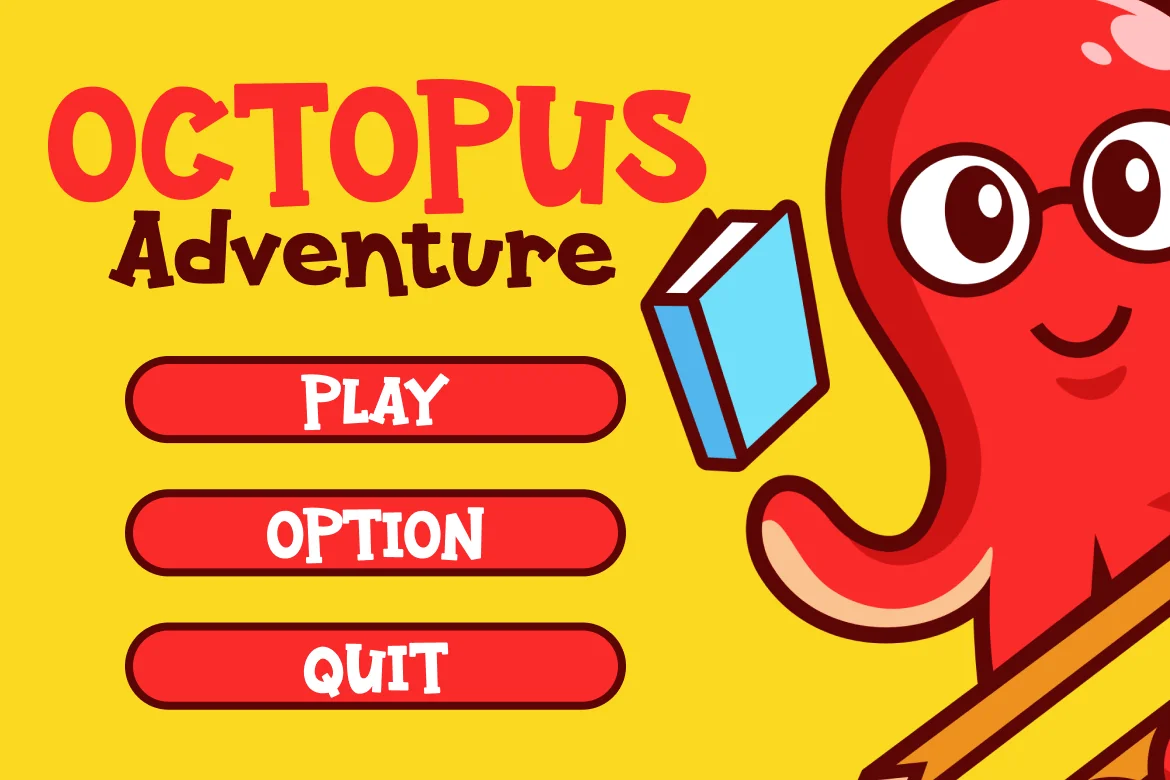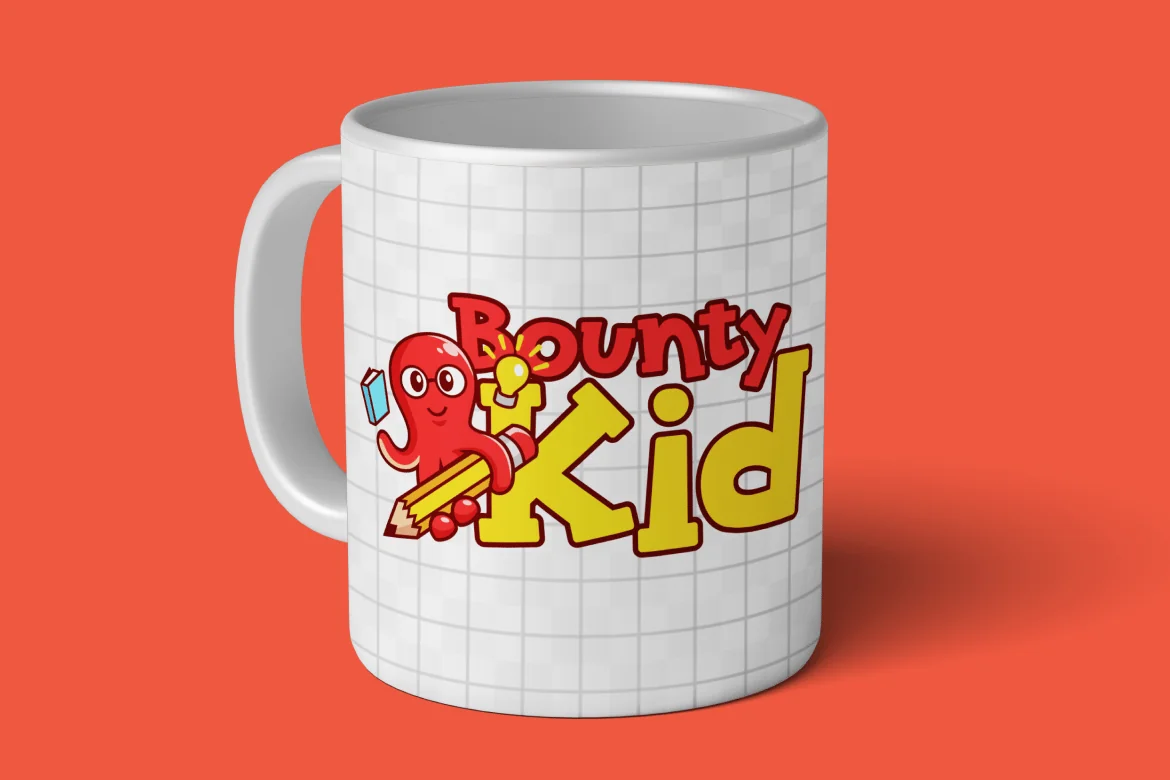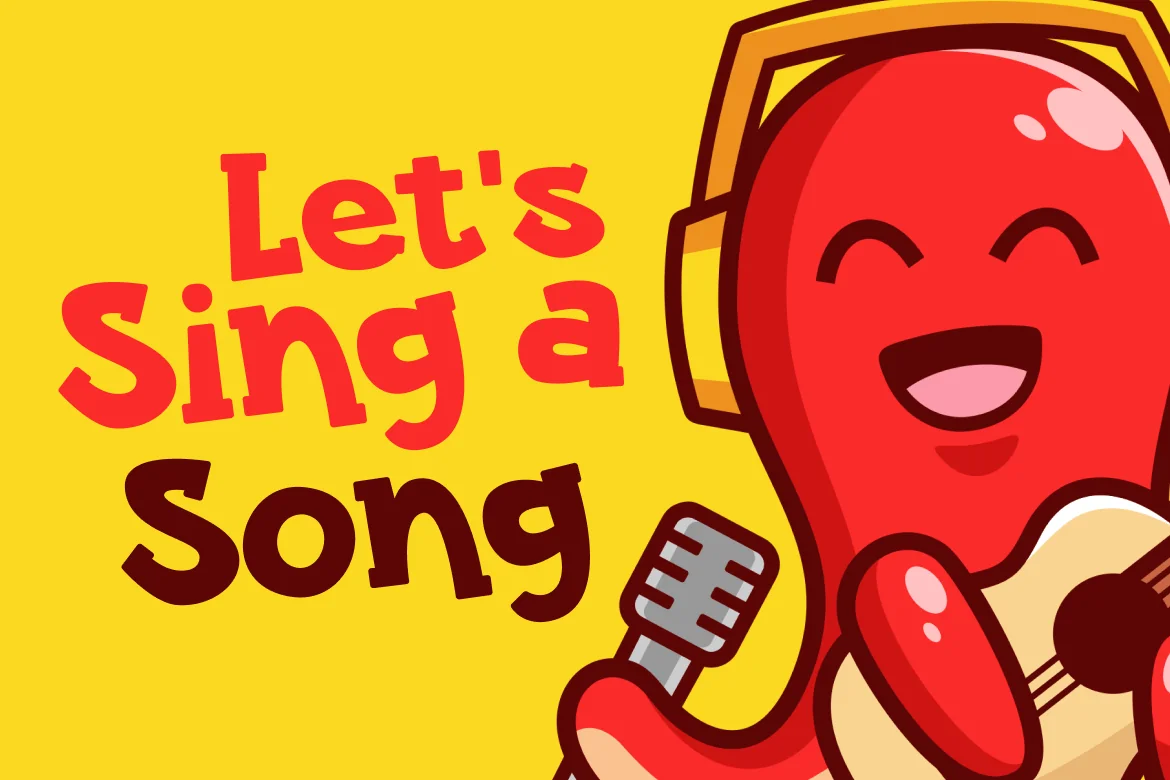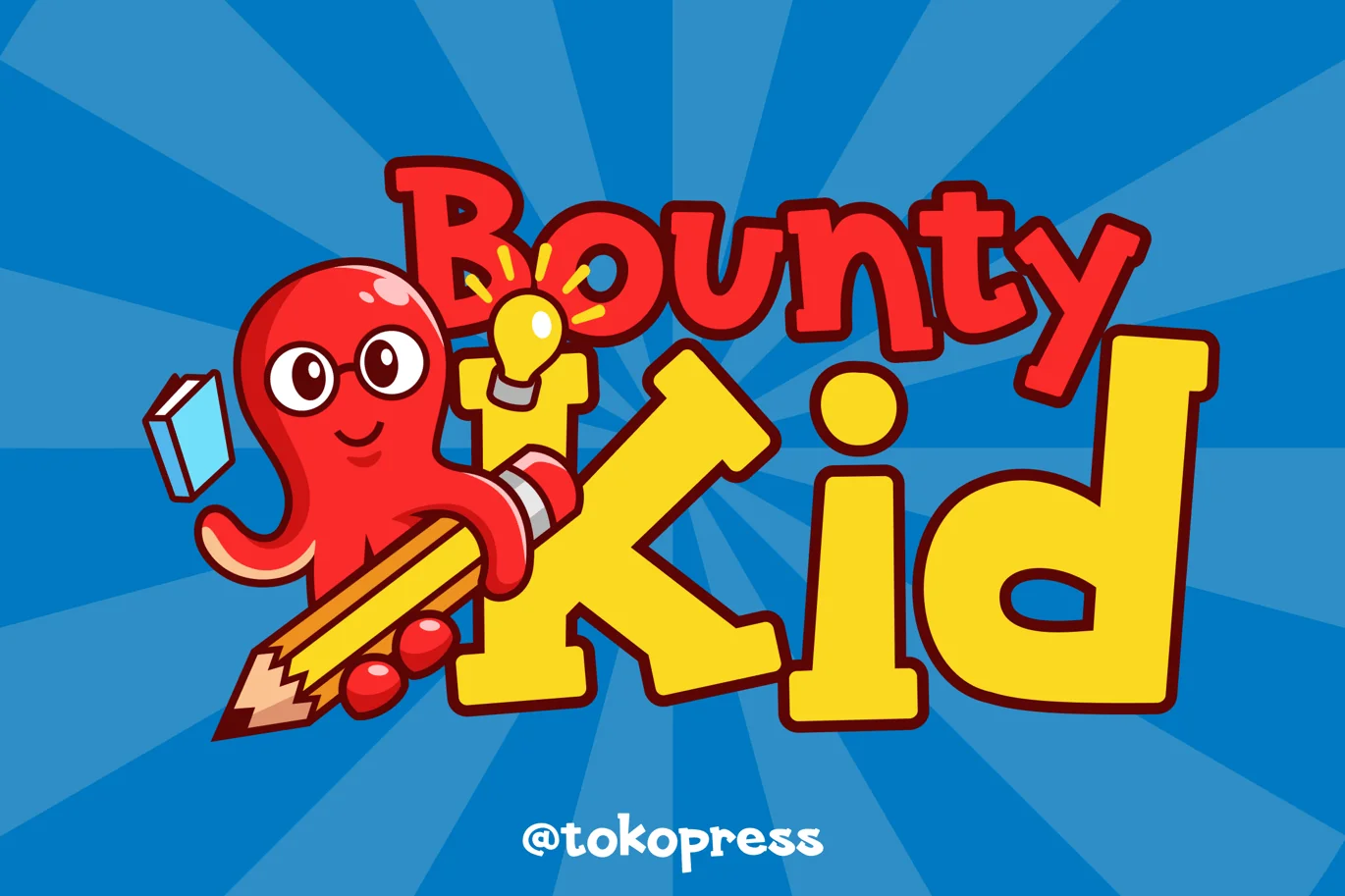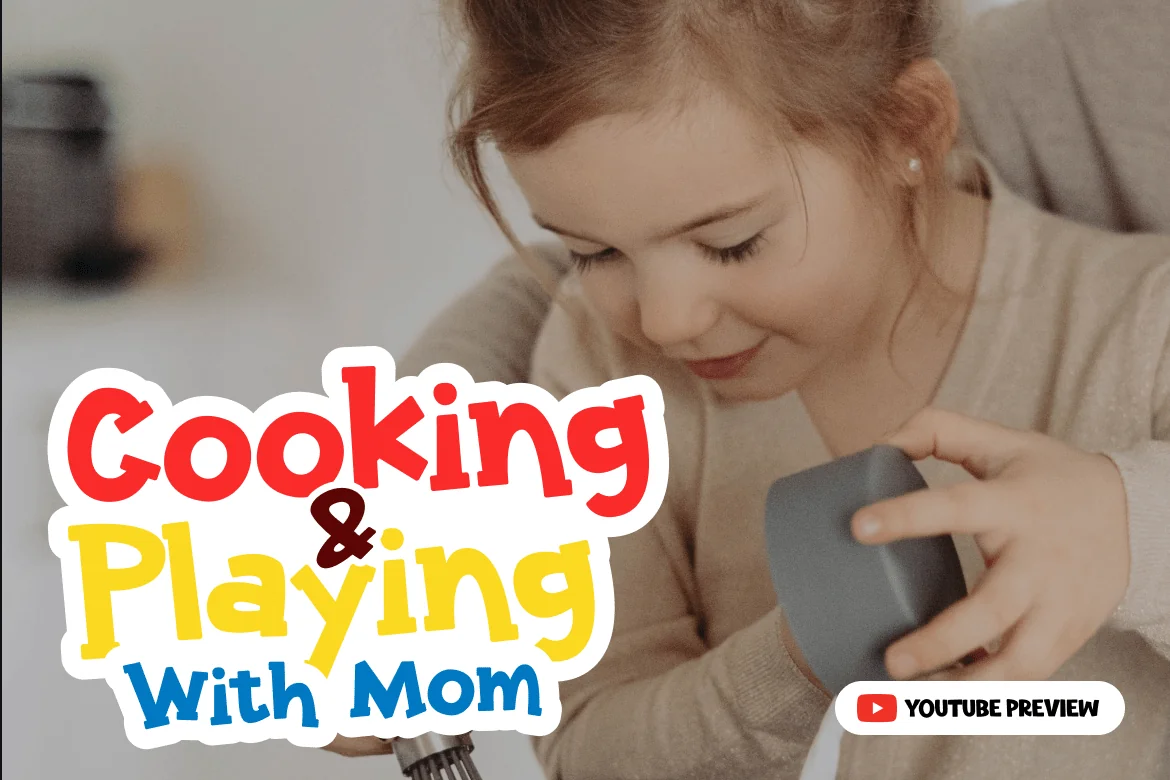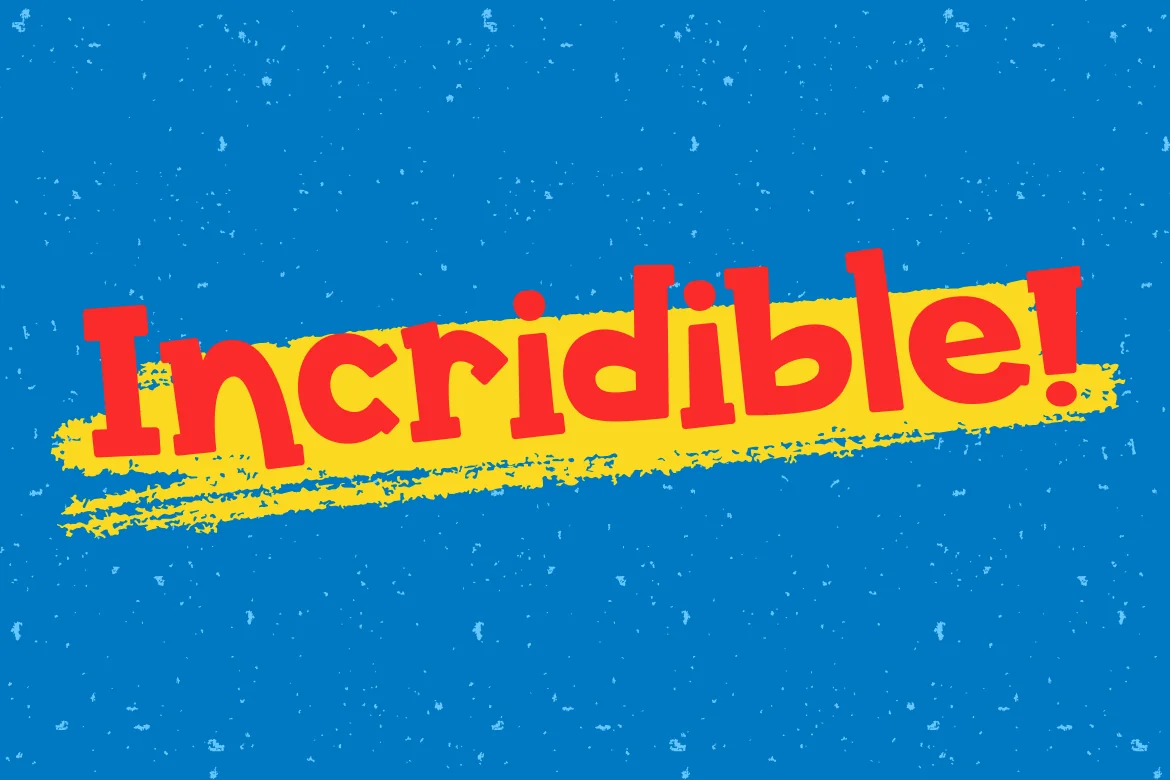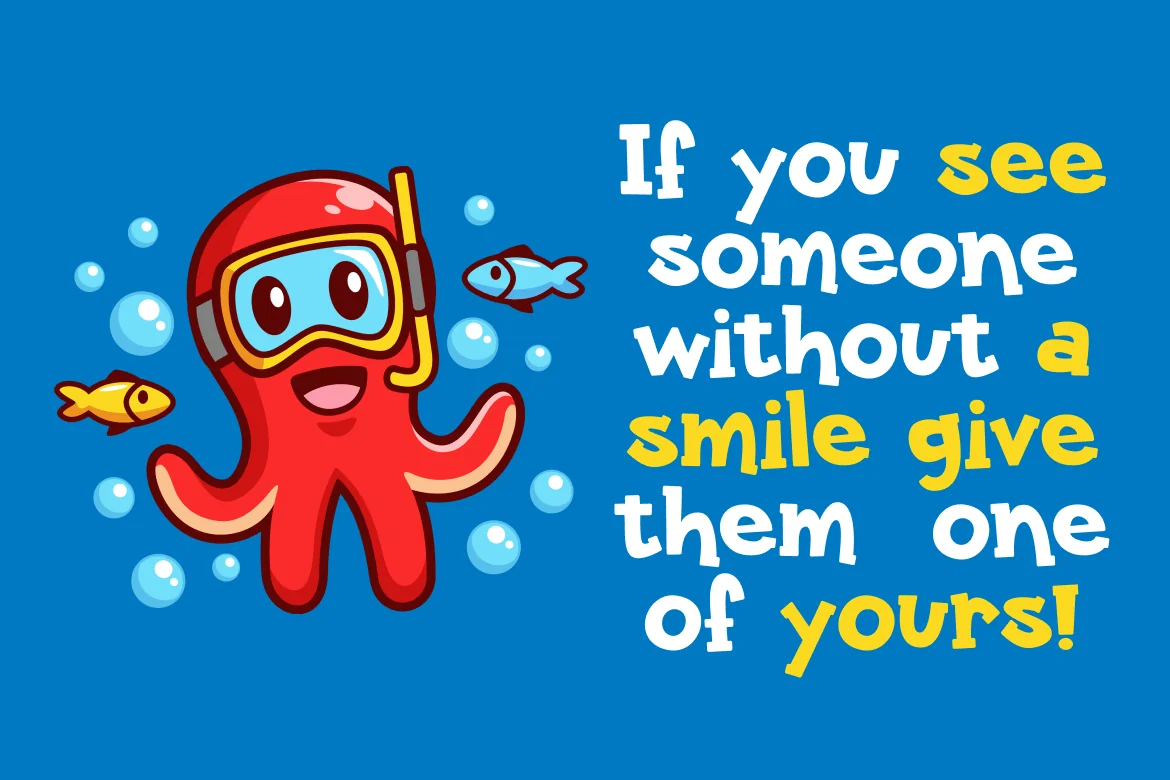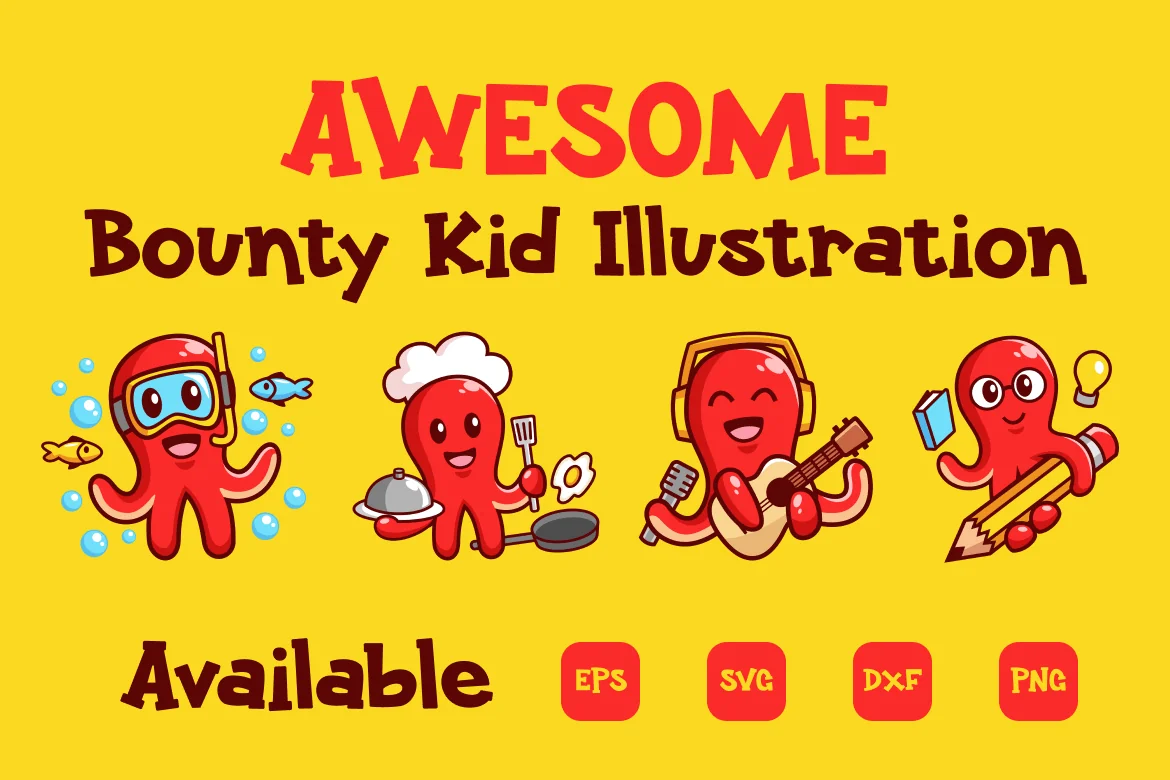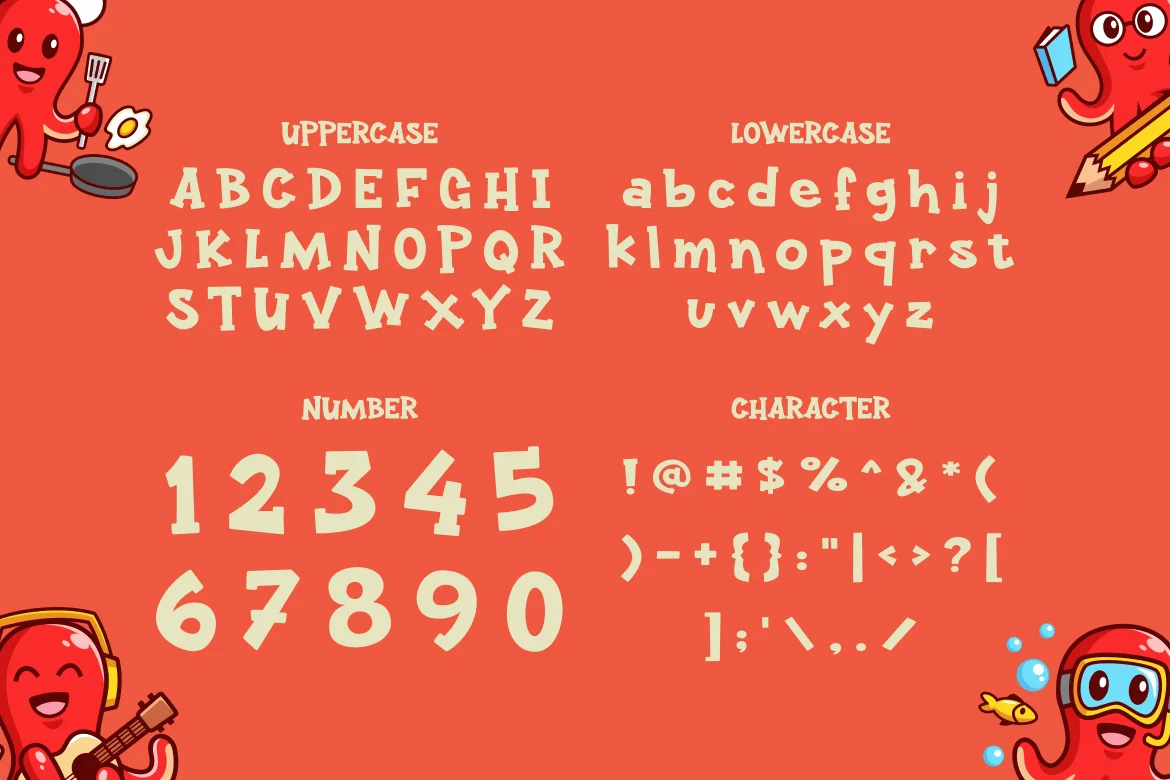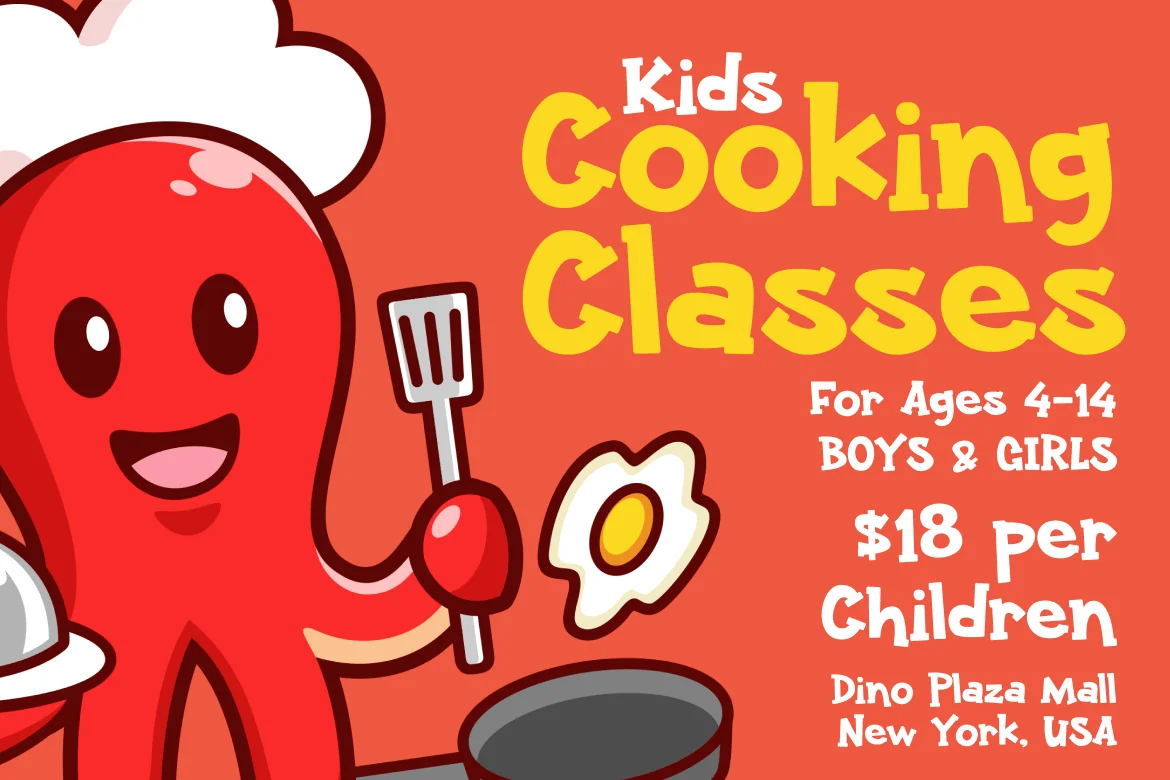
Bounty Kid – Cartoon Font
Bounty Kid – Cartoon font
The happiness and joy is what children world. And Bounty Kid is all about that. It bring smile all over the place.
Suit perfectly for kids books market, online games, stationary, school supplies font, poster, movie title, youtube covers, youtube thumbnails, social media page covers and so on…